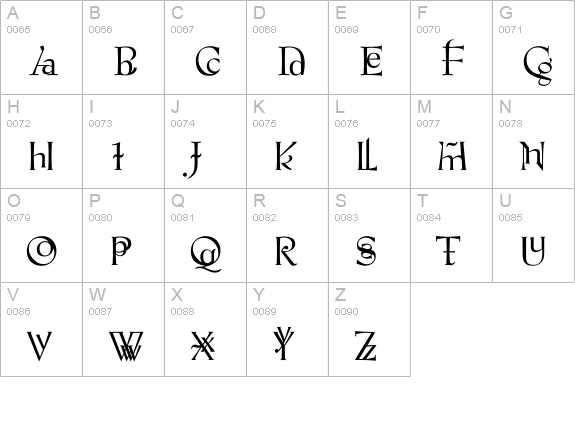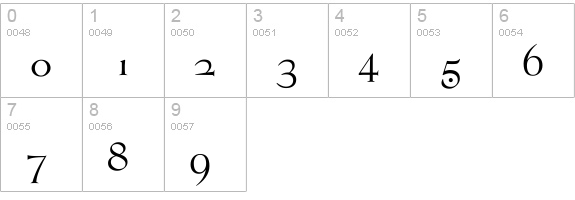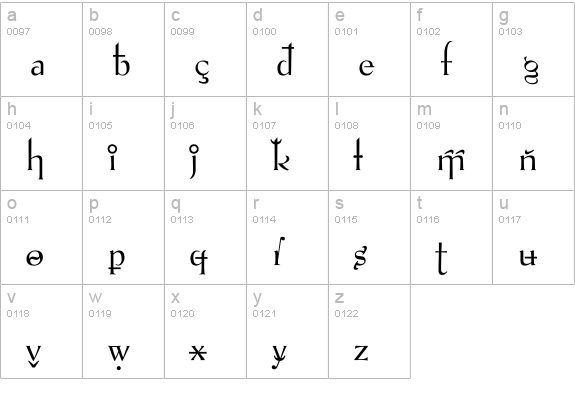
VTPompousCircumstanceShapely Font Details
Introducing VTPompousCircumstanceShapely font, a breathtaking and sophisticated typeface that exudes an air of elegance and grandeur. With its meticulously crafted letterforms and exquisite attention to detail, this font is perfect for those seeking to make a bold statement with their designs. VTPompousCircumstanceShapely font is a true masterpiece, combining classic elements with a modern twist. Its unique and graceful curves command attention, while its tall and slender strokes create a harmonious balance. This font effortlessly captures the essence of sophistication, making it ideal for luxurious branding, high-end editorial designs, and formal invitations. But what truly sets VTPompousCircumstanceShapely font apart is its versatility. Whether you're designing a glamorous wedding invitation or a chic fashion magazine, this font adapts seamlessly to any project, elevating it to new heights of elegance. Its extensive character set includes uppercase and lowercase letters, numerals, punctuation marks, and an array of special characters, providing endless possibilities for creativity. And the best part? VTPompousCircumstanceShapely font is freely available to download at FontsMarket.com. That's right, you can effortlessly add a touch of sophistication to your designs without breaking the bank. So go ahead, unleash your creativity and embrace the opulence and refinement that VTPompousCircumstanceShapely font brings to your projects. Download it now and let your designs shine with unparalleled grandeur.